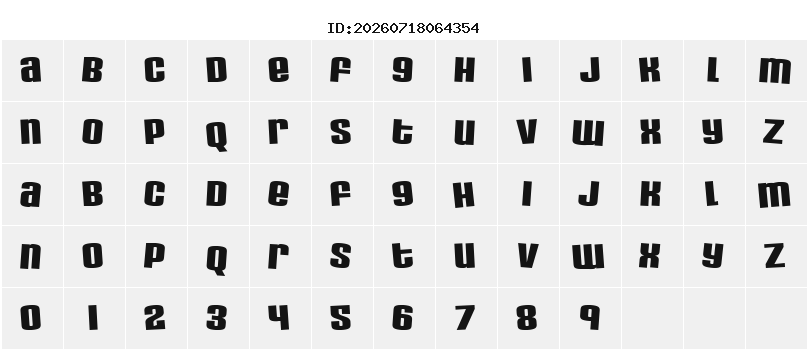
Cherub Small Caps Preview
• Font Name: Cherub Small Caps
• Full Font Name: Cherub Small Caps
About Cherub Small Caps.ttf
Cherub Small Caps.ttf is a modern, elegant sans-serif font designed for ultimate readability and visual harmony. Perfect for branding, headlines, web design, and print materials.